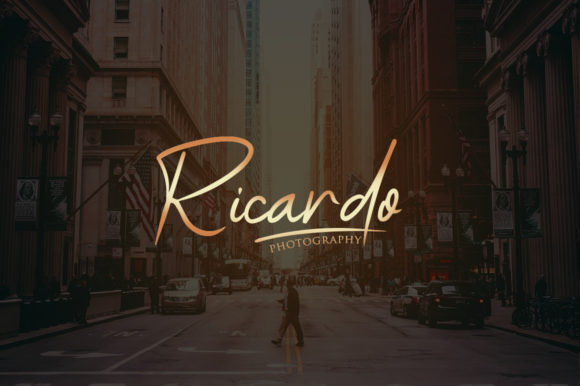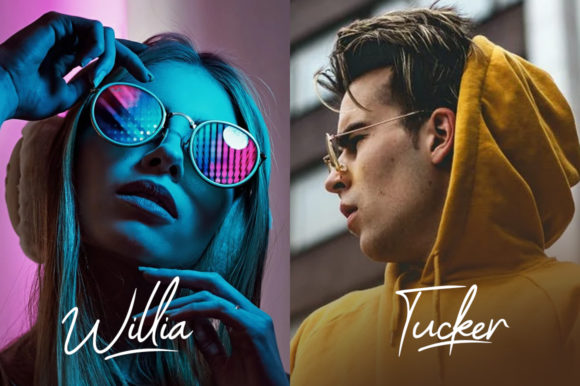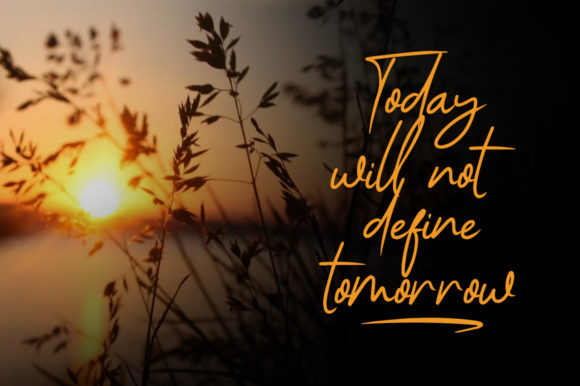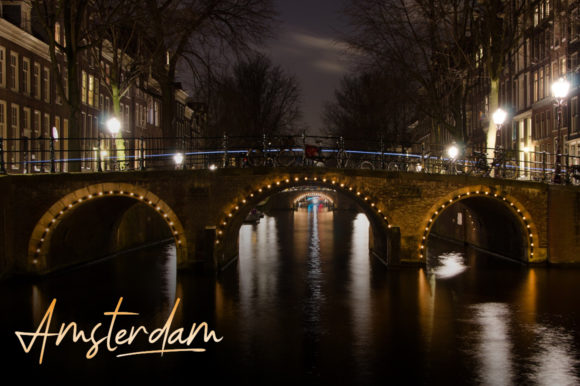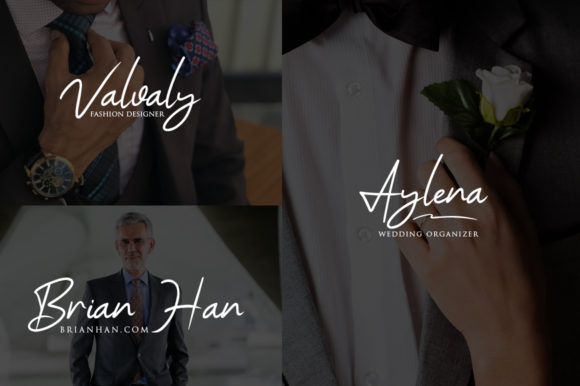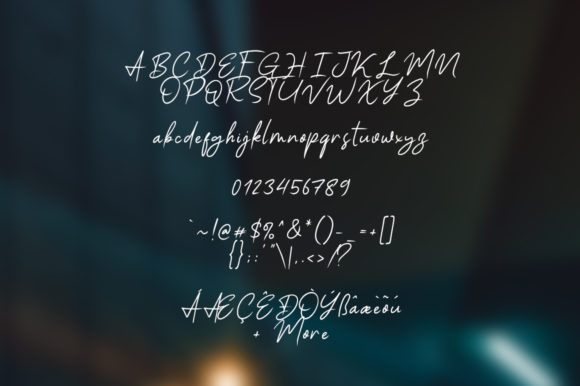
Discover the Elegance of Allain Font: A Flowing Handwritten Script
Are you on the hunt for a font that exudes elegance and sophistication? Look no further than the Allain Font, a beautiful, flowing handwritten script that is sure to capture your heart. With its incredibly distinct and timeless style, Allain is the perfect choice for designers and crafters looking to add a touch of refinement to their projects.
What is Allain Font?
Allain is a carefully crafted handwritten font that boasts an elegant touch, making it ideal for a wide range of applications. From branding and advertising to packaging and digital media, Allain’s versatility knows no bounds. Its unique, flowing script is reminiscent of traditional calligraphy, yet its modern twist ensures it remains fresh and relevant.
Key Features of Allain Font
- Elegant and Refined: Allain’s sophisticated style is perfect for projects that require a touch of luxury and refinement.
- Flowing Script: The font’s flowing script creates a sense of movement and fluidity, making it perfect for designs that require a dynamic feel.
- Distinct and Timeless: Allain’s unique style ensures it won’t go out of fashion anytime soon, making it a great investment for designers and crafters.
- Highly Versatile: Allain can be used for a wide range of applications, from digital media to print materials.
Allain Font is a dream come true for designers and crafters looking to create spectacular designs. Whether you’re working on a branding project, creating social media graphics, or crafting digital products, Allain’s elegant style is sure to impress. Its unique and timeless design ensures your creations will stand out from the crowd, while its versatility makes it easy to adapt to any design brief.
- Pair it with Bold Fonts: Combine Allain with bold, sans-serif fonts for a striking contrast that adds visual interest to your designs.
- Use it for Headings: Allain’s elegant style makes it perfect for headings and titles, adding a touch of sophistication to your designs.
- Experiment with Colors: Allain looks great in a range of colors, from bold and bright to soft and pastel.
- Unique Style: Allain’s unique, flowing script is unlike any other font on the market.
- High-Quality Design: Allain is carefully crafted to ensure it looks great in any design application.